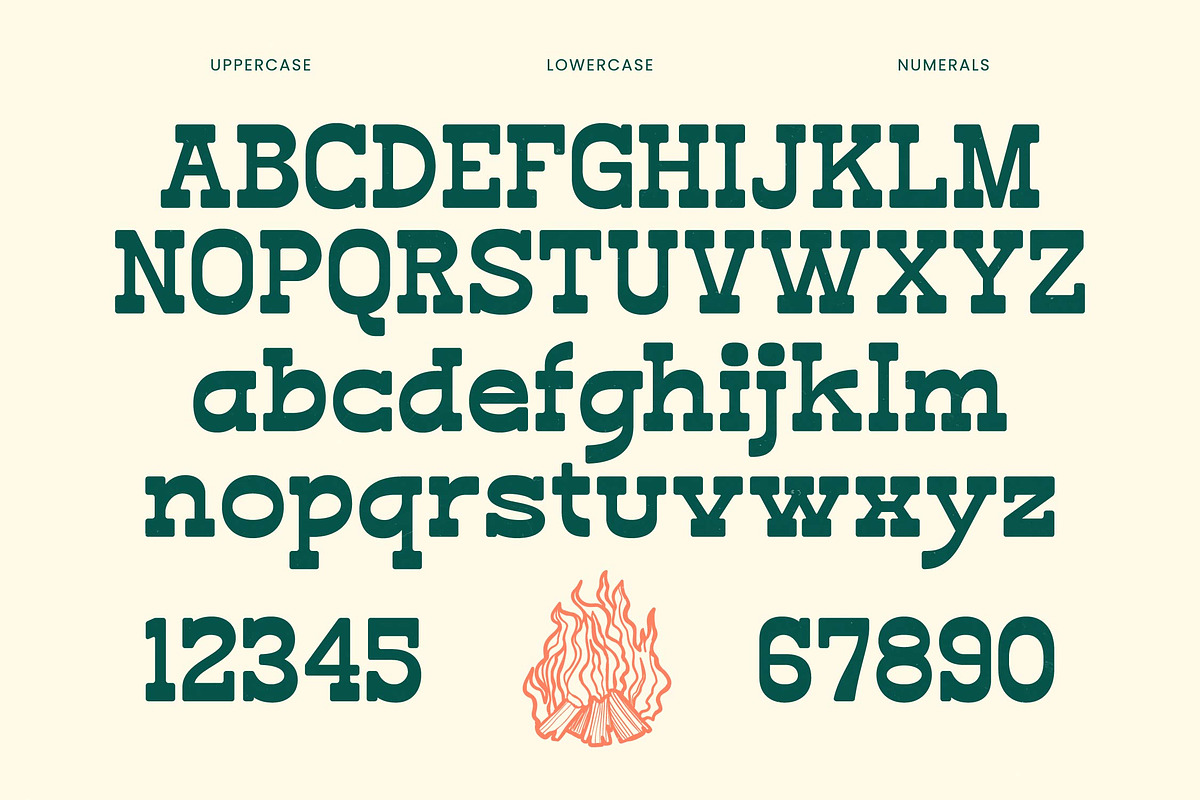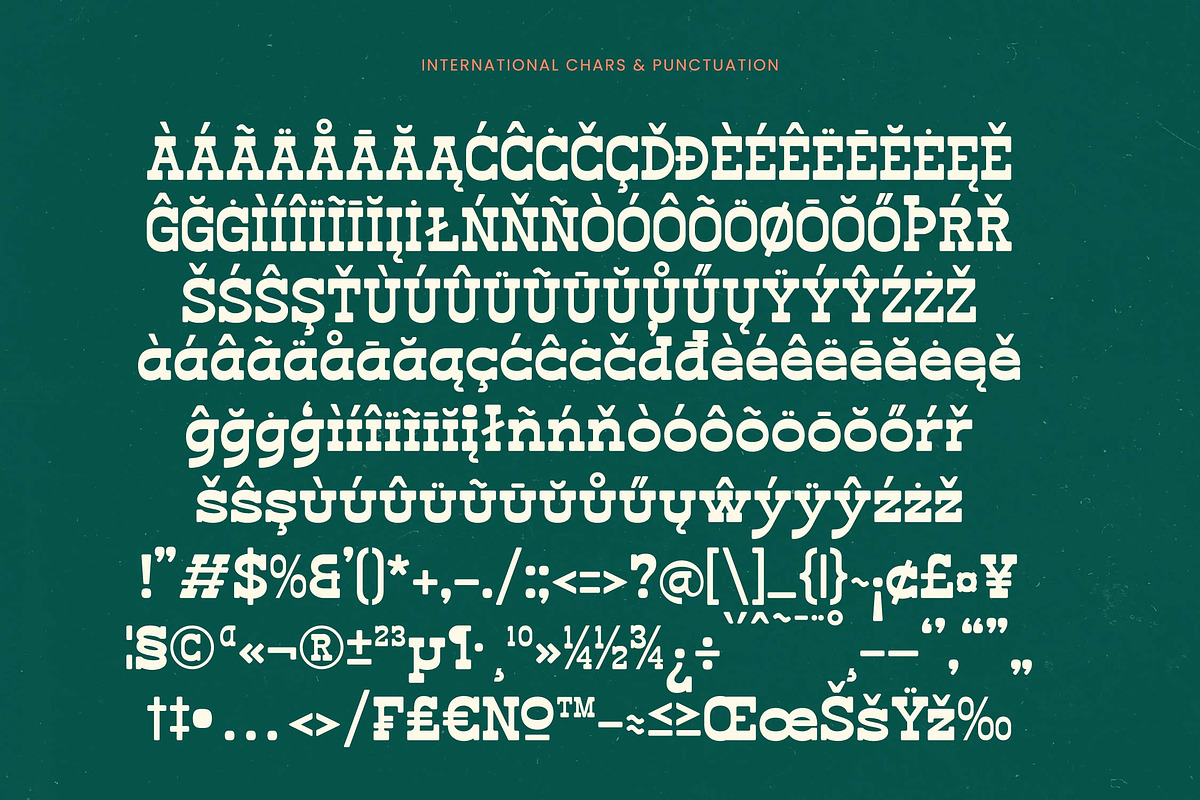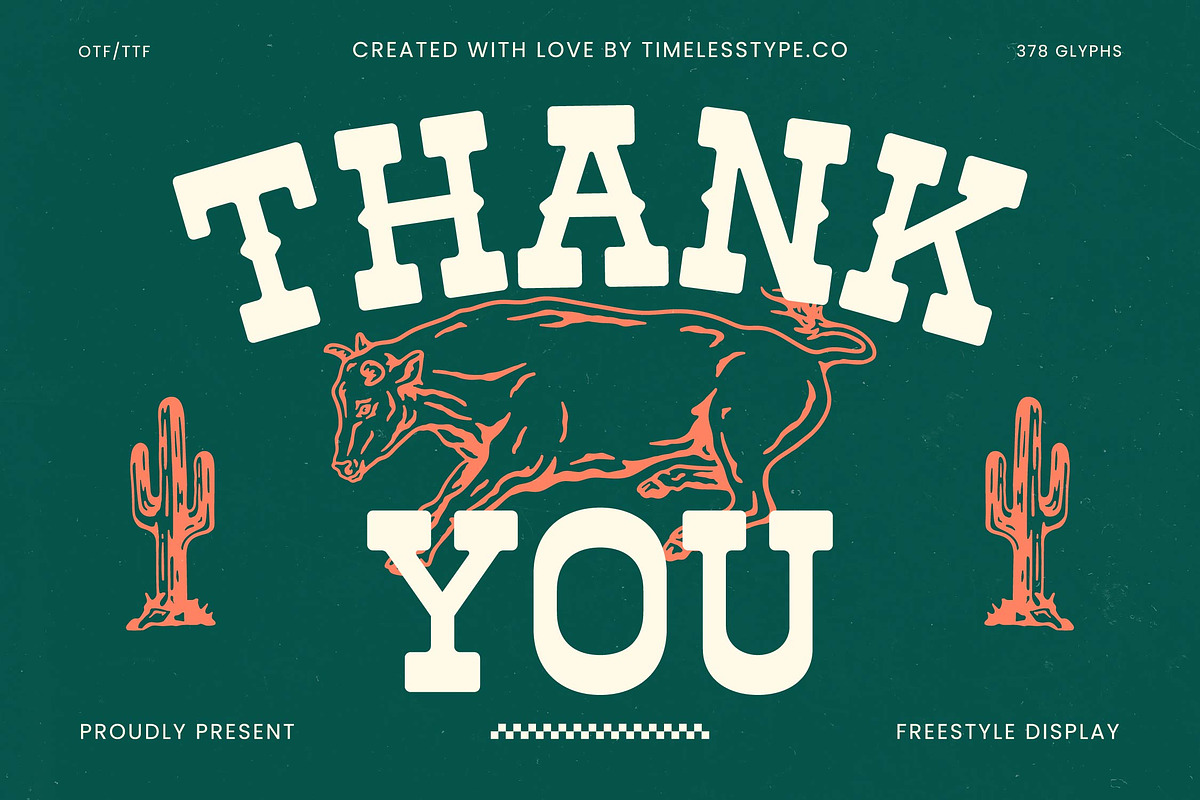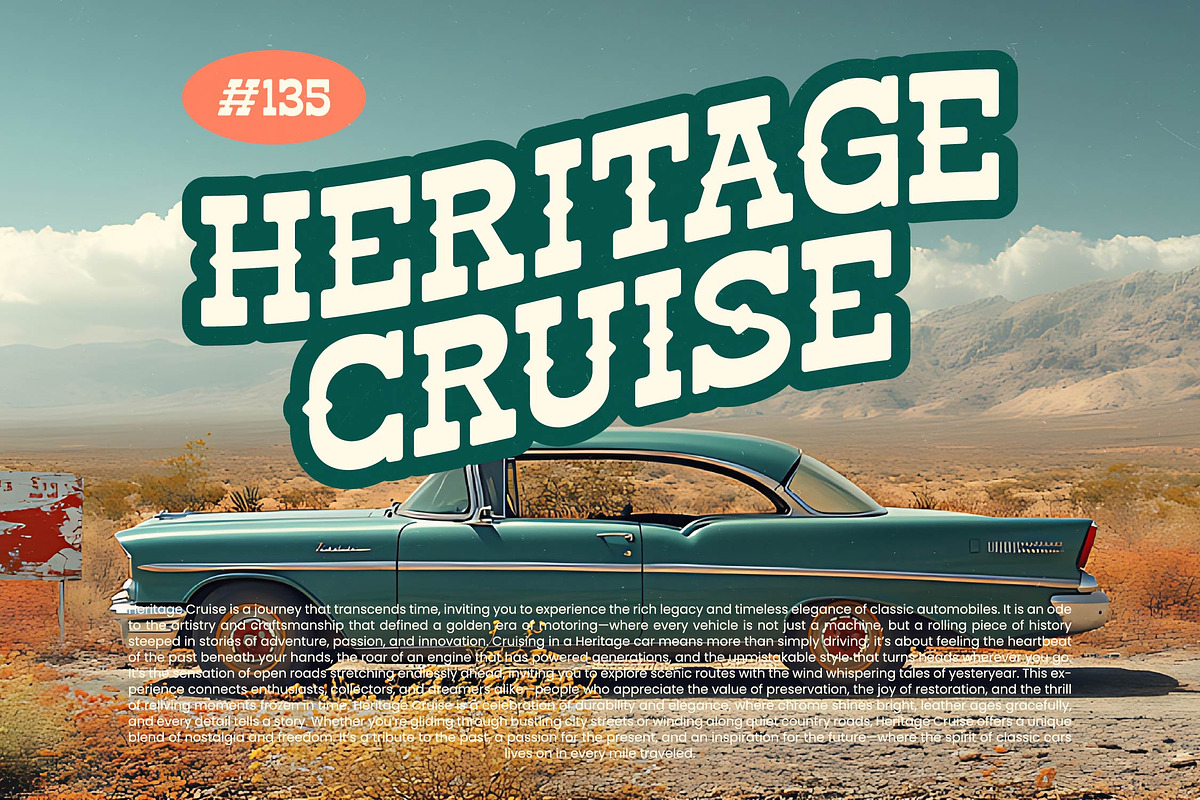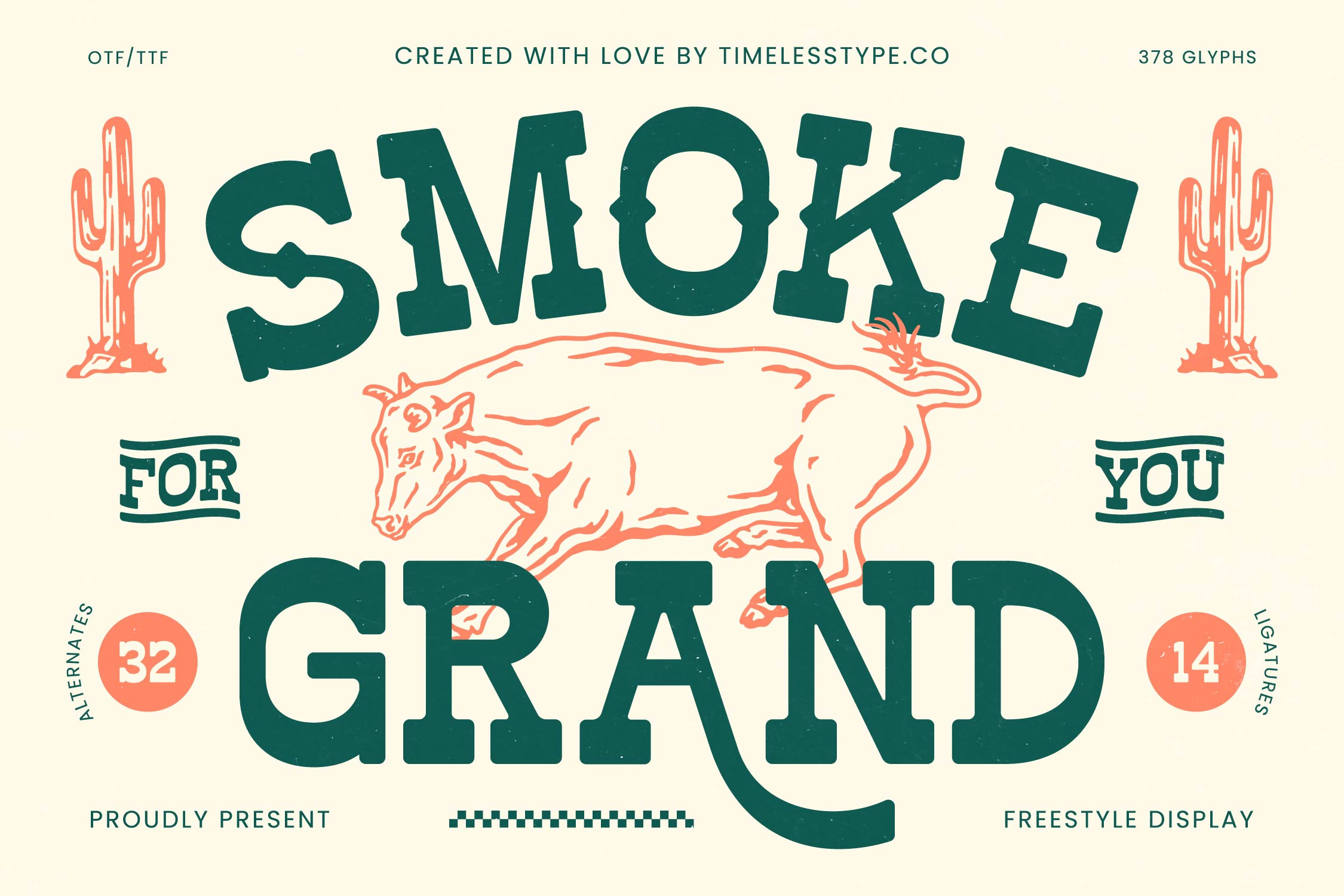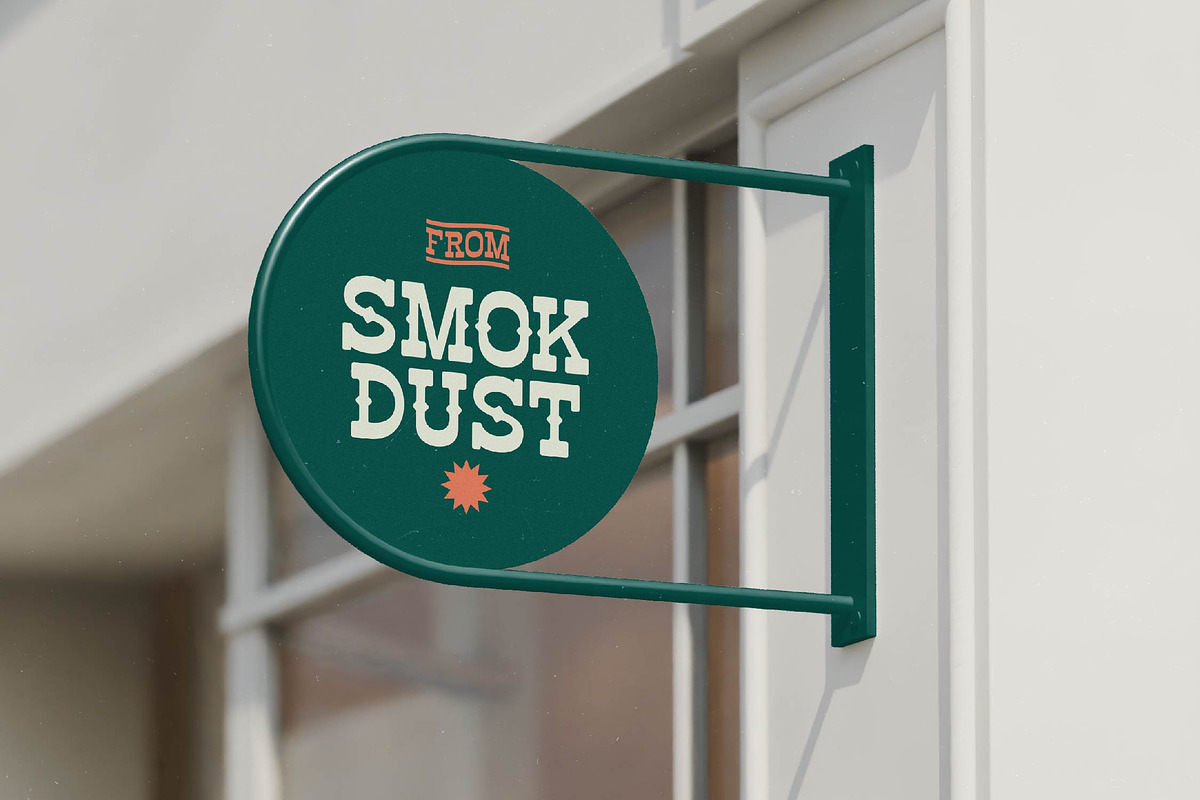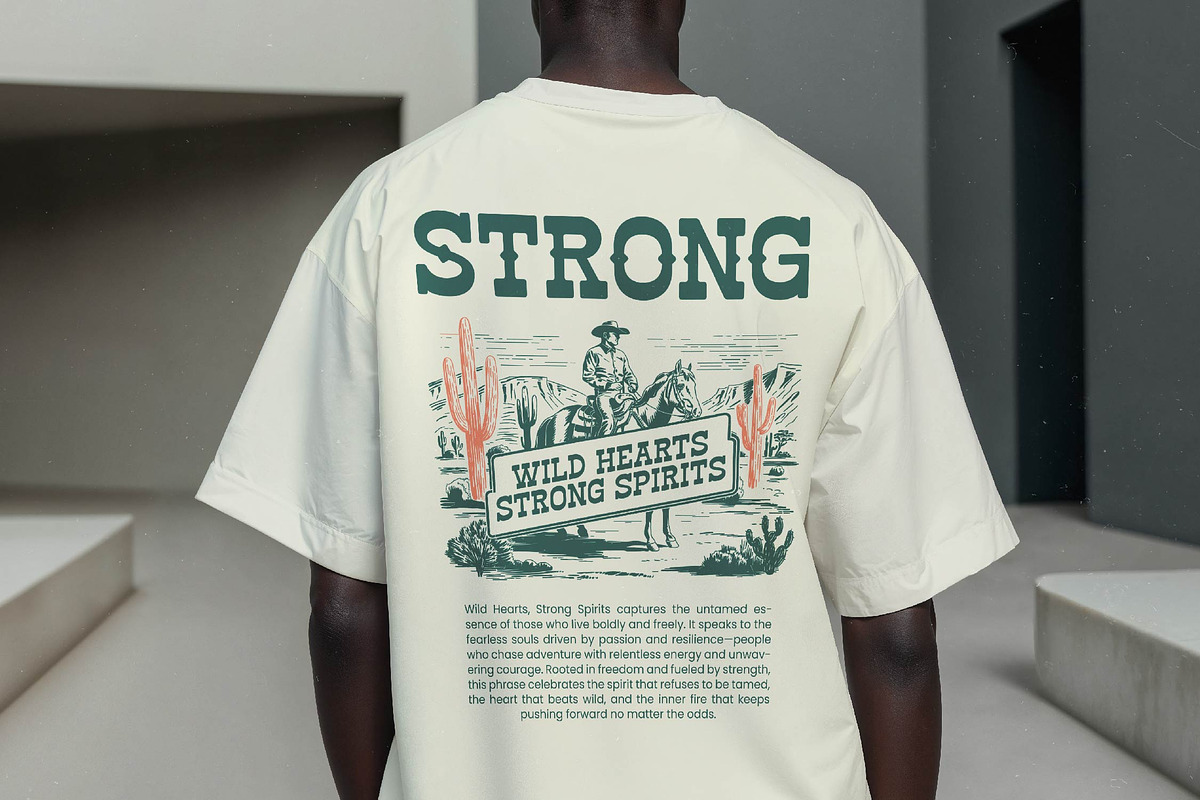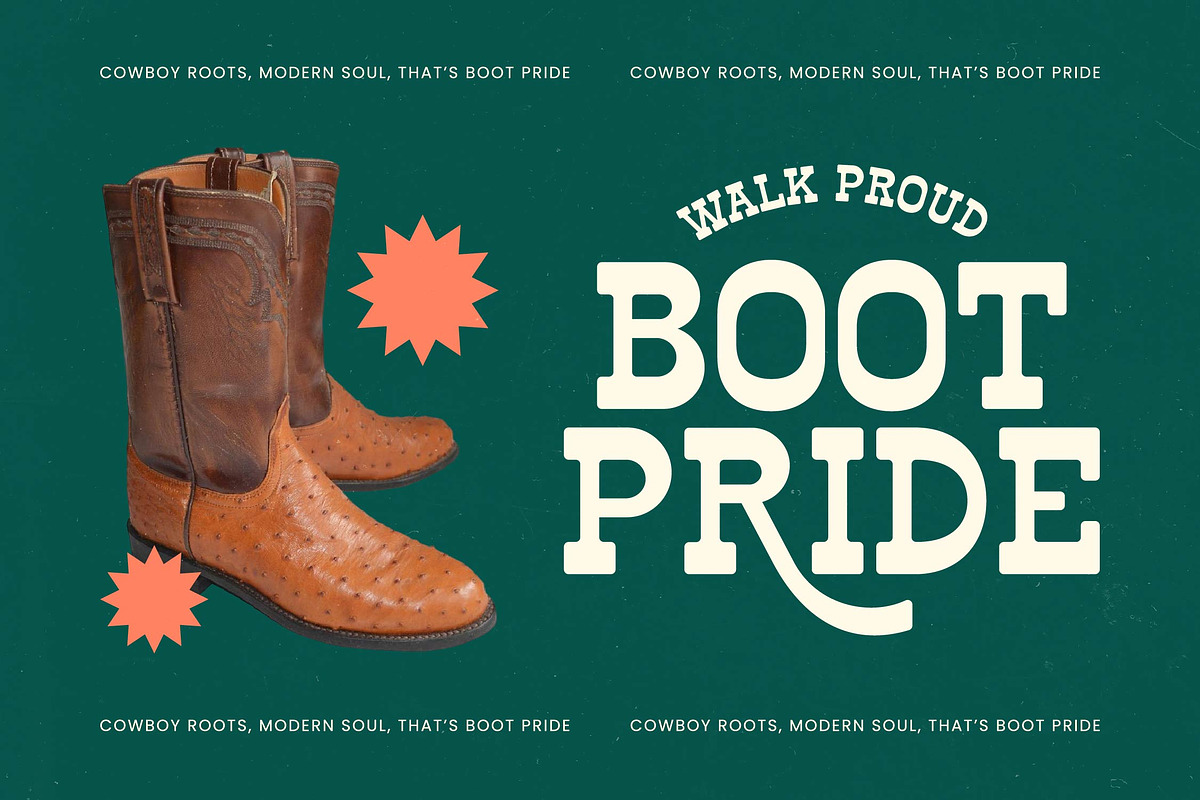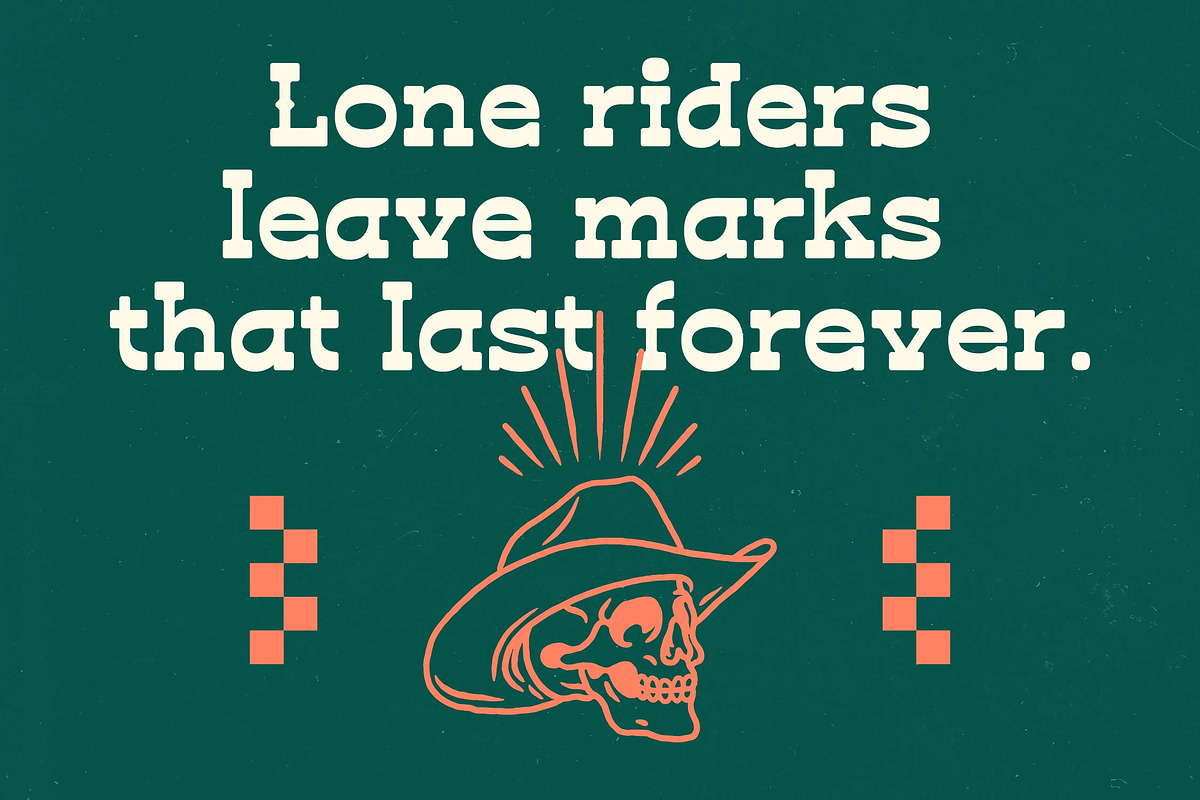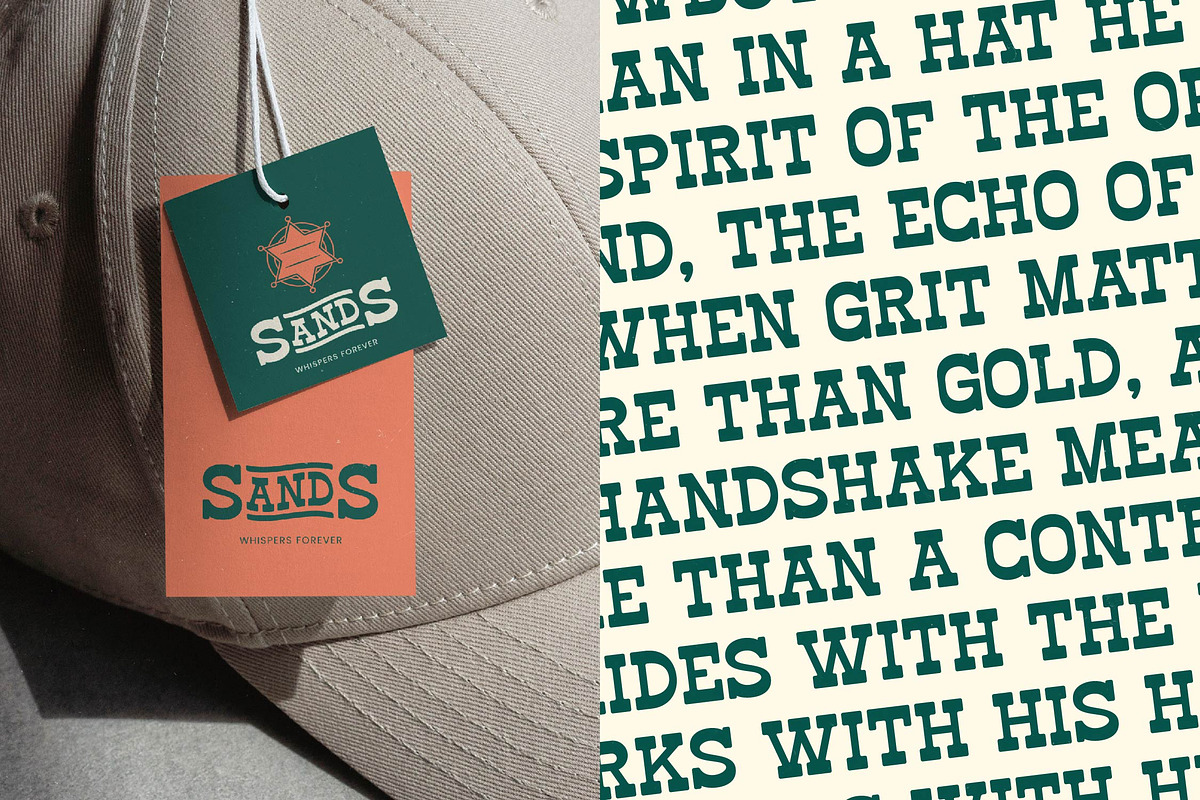
Smoke Grand Western Display Font
Experience the rugged spirit of the frontier with Smoke Grand, a bold slab serif that captures the essence of classic Americana and modern craftsmanship. This font is a statement piece designed to turn heads and tell a story of heritage and quality.
Drawing inspiration from the weathered signs of the American West and vintage hand-drawn typography, this face captures the atmosphere of a campfire under the stars. It is built for designers who want to bridge the gap between historical grit and contemporary elegance.
As a striking modern serif display, it delivers a unique visual rhythm that elevates it above standard typefaces. It provides a touch of luxury typography through its intricate details, serving as a high-contrast serif that ensures maximum branding impact whenever used as a primary editorial font.
Tapping into the prevailing modern serif trend, this typeface offers a nostalgic warmth that is highly sought after in current visual culture. It outshines generic editorial display fonts by providing character-driven typography that gives every word its own distinct personality.
Whether you are crafting a standout logo design or building a cohesive identity for branding, this font is remarkably versatile. It excels in heavy-duty packaging, adventurous editorial spreads, and even high-concept fashion or rustic-themed wedding suites.
This comprehensive package includes 378 glyphs, featuring 14 ligatures and 32 alternates that allow for deep customization. The set is fully multilingual with a wide range of international characters, complemented by decorative swashes that add a bespoke feel to any layout.